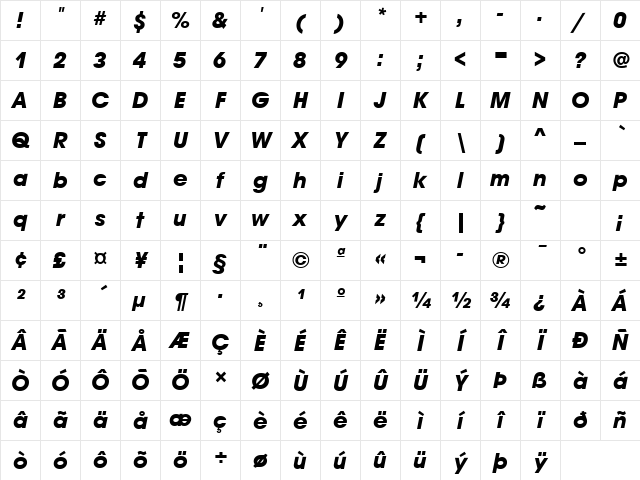
AvalonTwo Bold Italic Free Font
AvalonTwo Bold Italic
AvalonTwo Family
Design Context for AvalonTwo
AvalonTwo is a composed and adaptable typeface that performs quietly and consistently across a wide range of design contexts. The slanted form adds forward momentum and visual energy. Its bold stroke weight gives it real presence on the page.
Pro Tip: Use AvalonTwo for emphasis, pull quotes, and subheadings where its slanted energy can add rhythm to the layout.